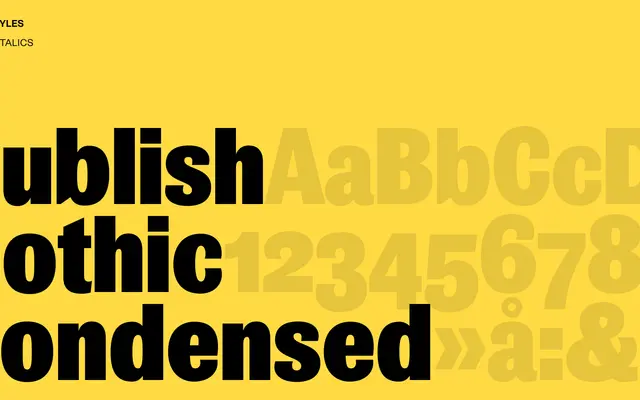
Publish Gothic Condensed
Publish Gothic Condensed specimen from Playtype
A condensed grotesque from Playtype suited to editorial and display applications where tight horizontal measure is required.
Publish Gothic Condensed sits within the grotesque tradition, offering a compressed form suited to headlines, posters and tight column widths. The page content available gives little technical detail about weights or language coverage, but the condensed grotesque structure points to print and editorial use. Playtype, the Copenhagen-based foundry, position it alongside their broader catalogue of contemporary Latin typefaces.
The name references the Gothic grotesque tradition; the condensed designation places it within the compressed grotesque subcategory common to editorial and display typography.